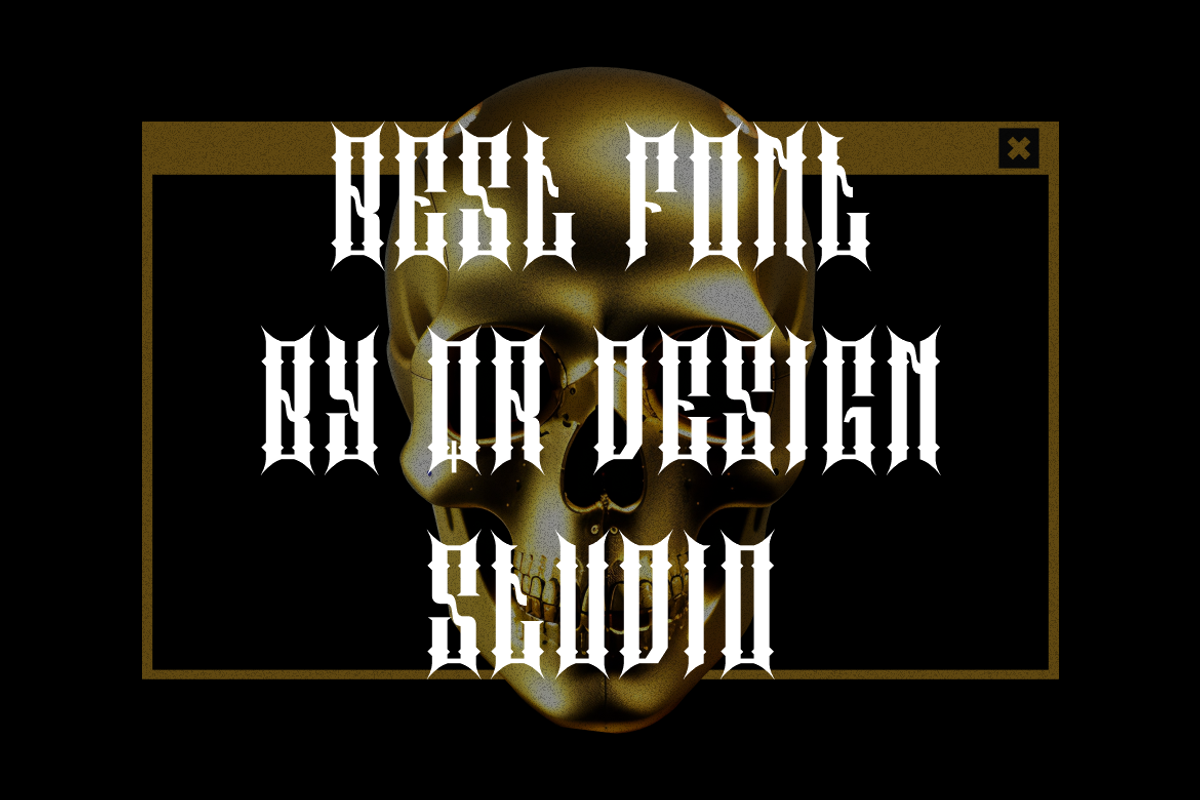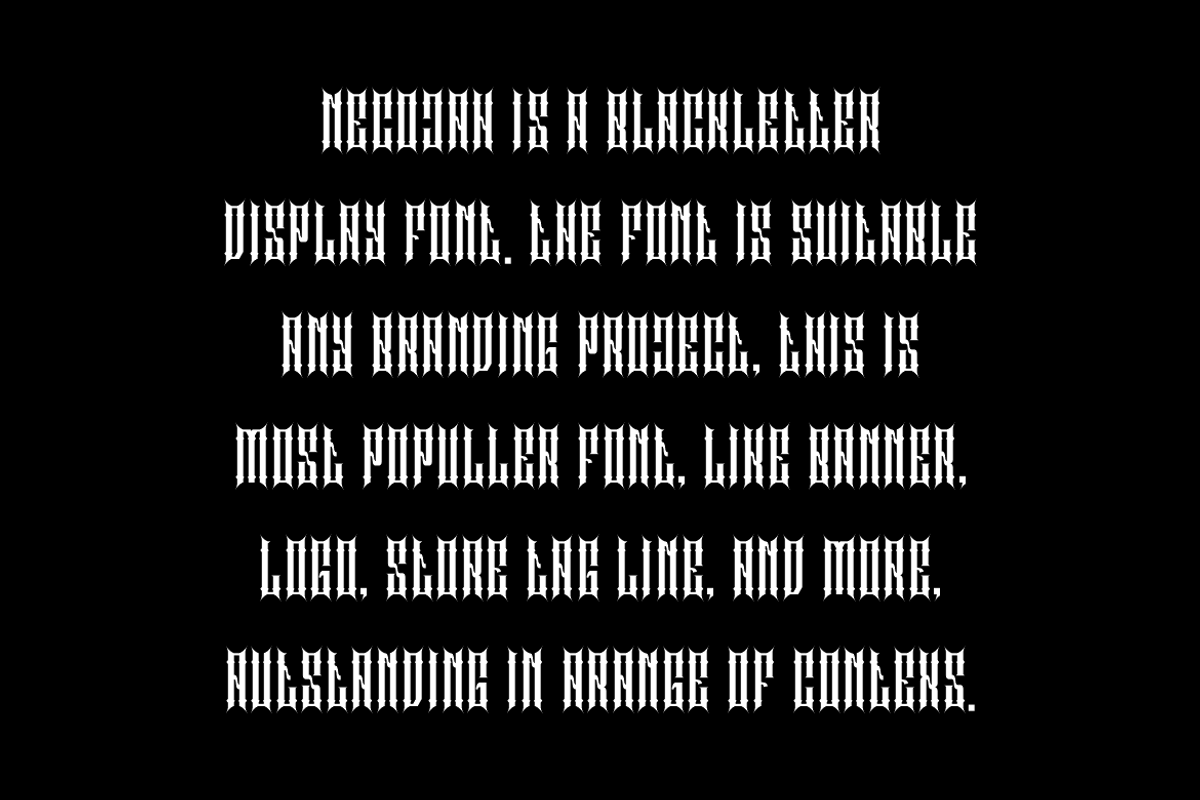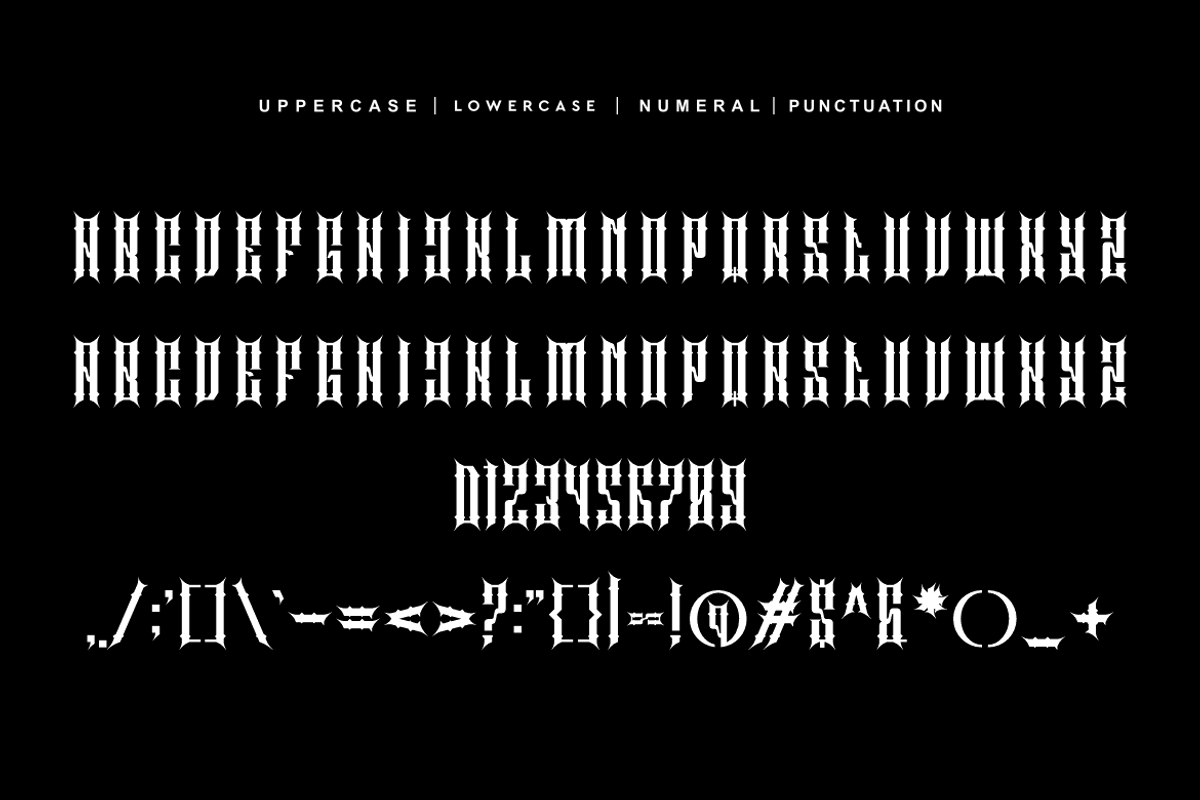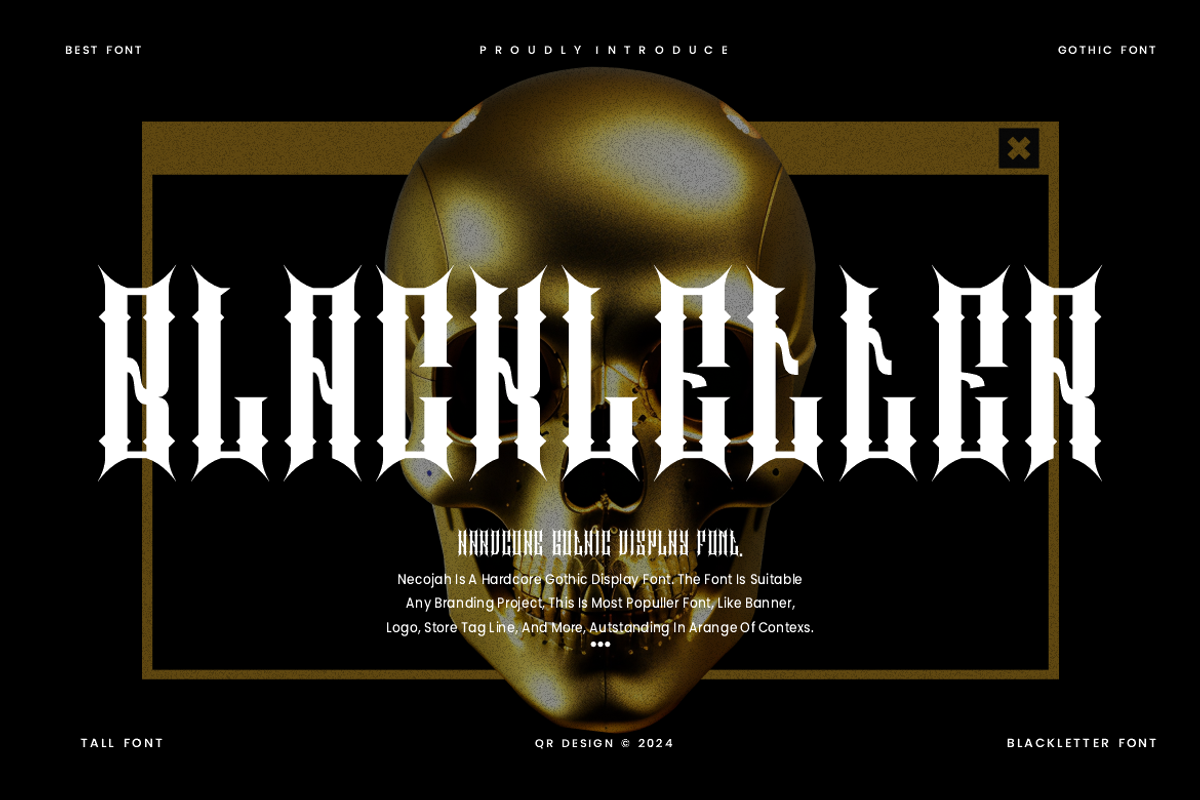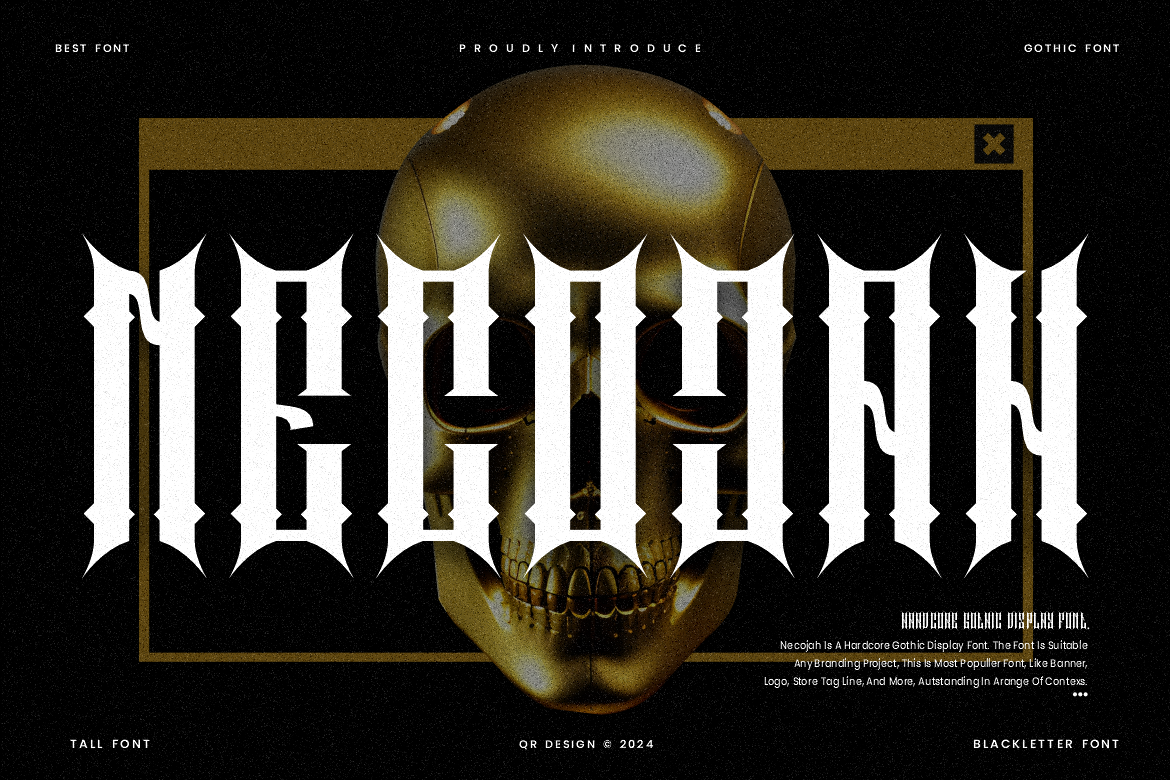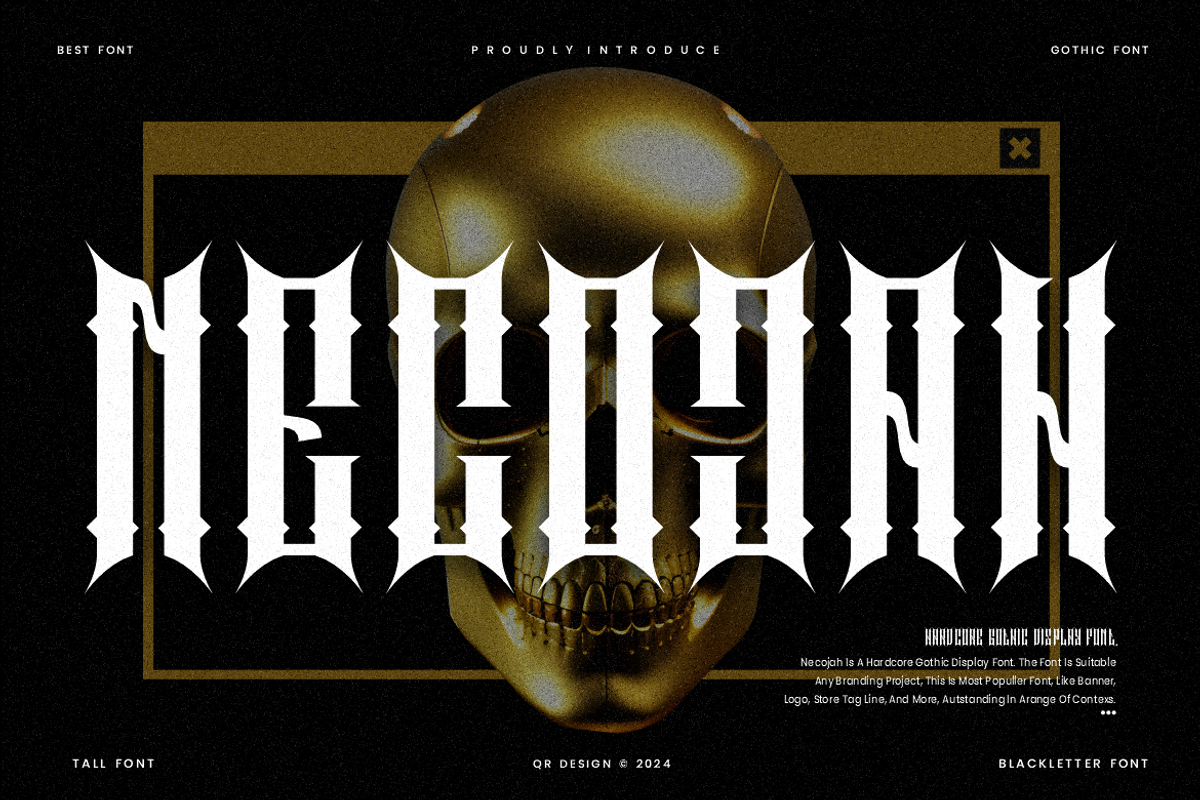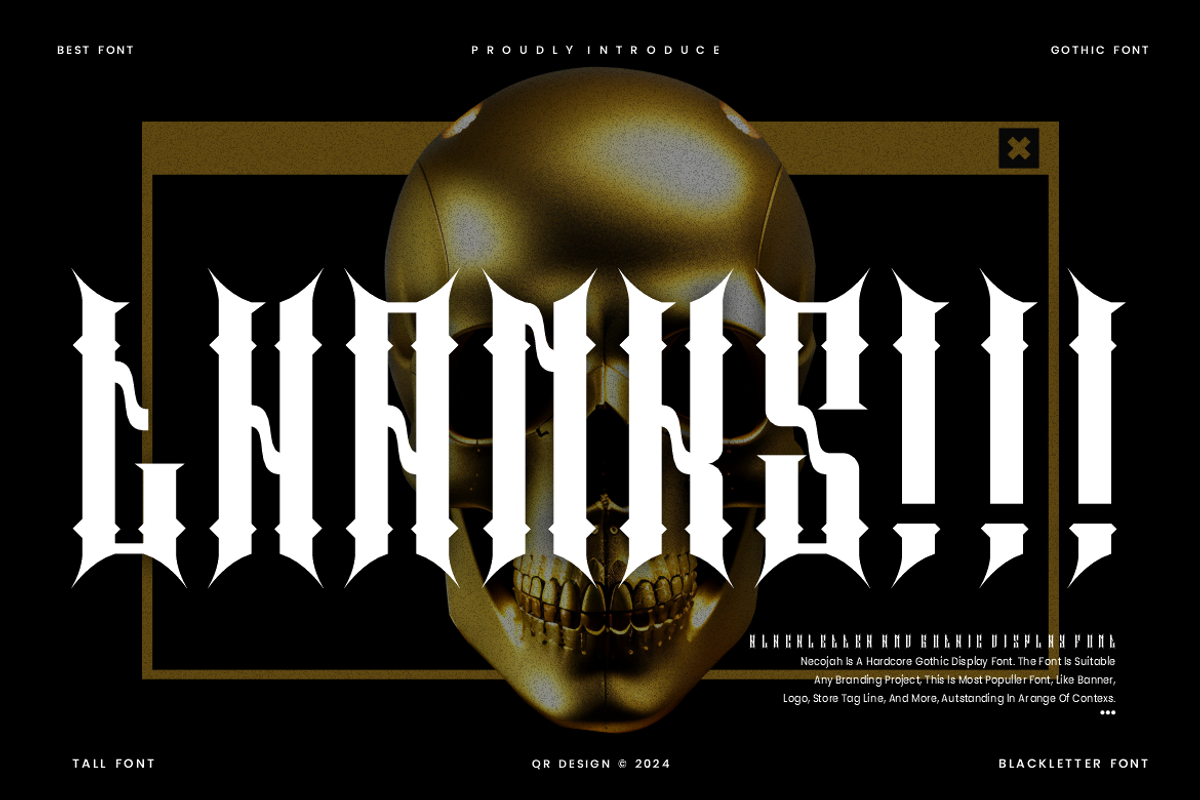
Necojah - Hardcore Gothic Font
Necojah Font is a blackletter and authentic display font. The font is suitable for any branding project like poster, logo, sport, and many more. Outstanding in a wide range of contexts.